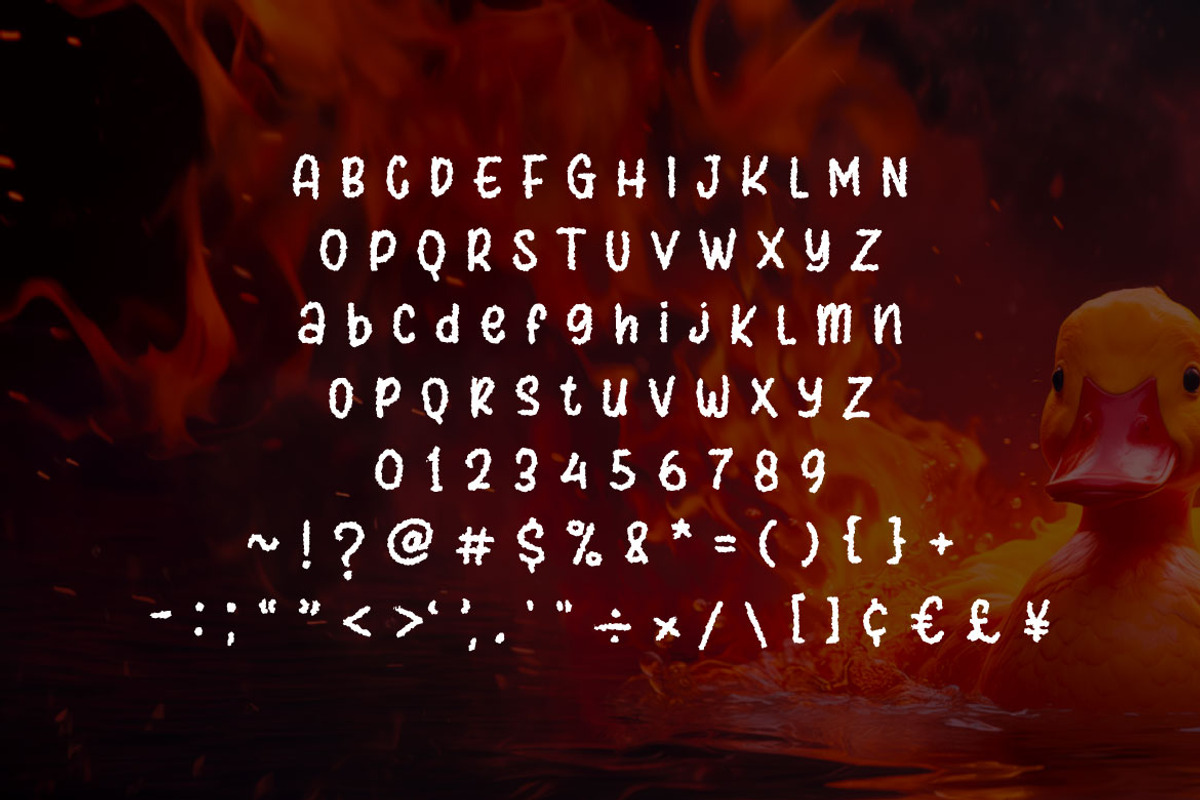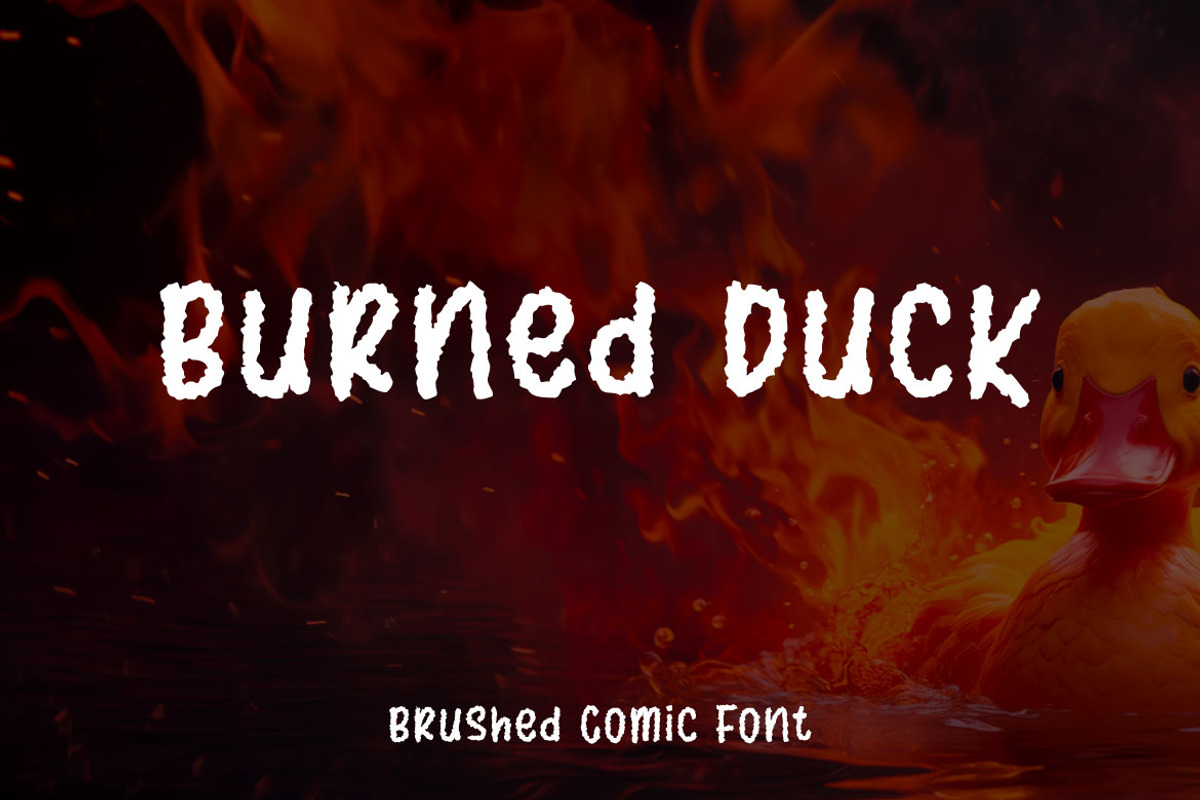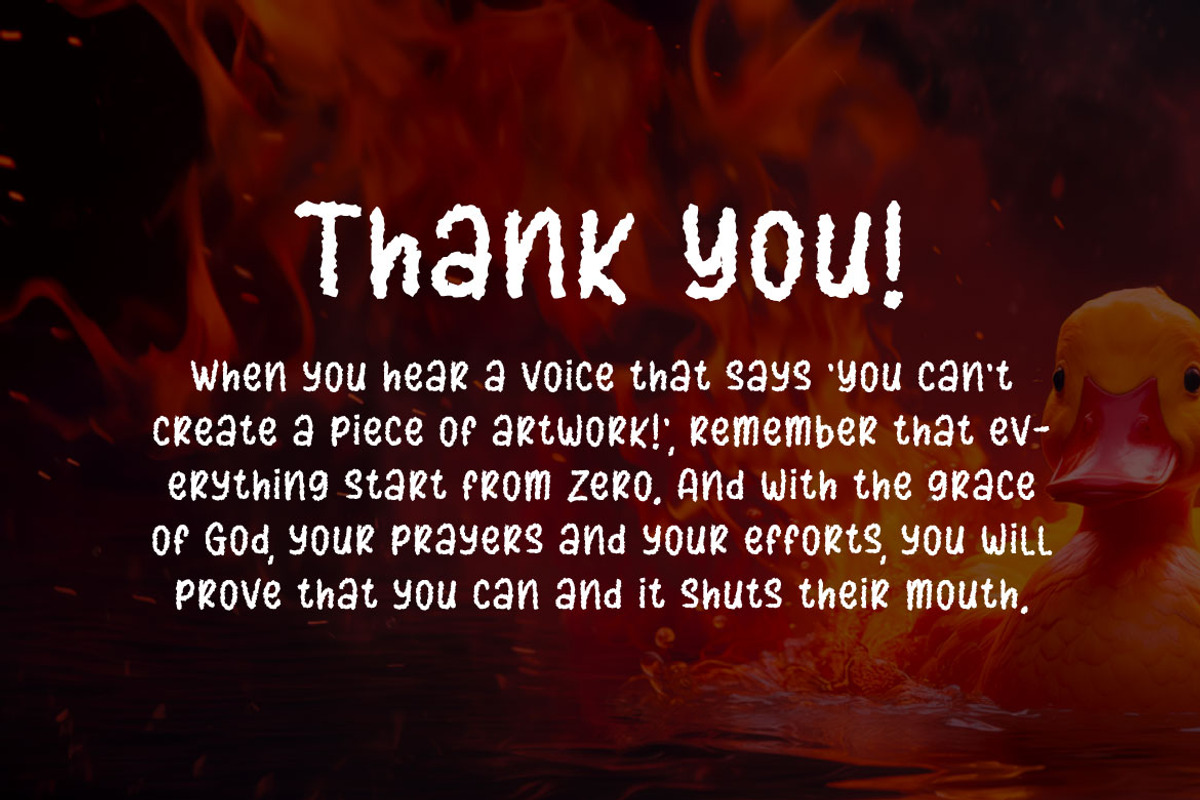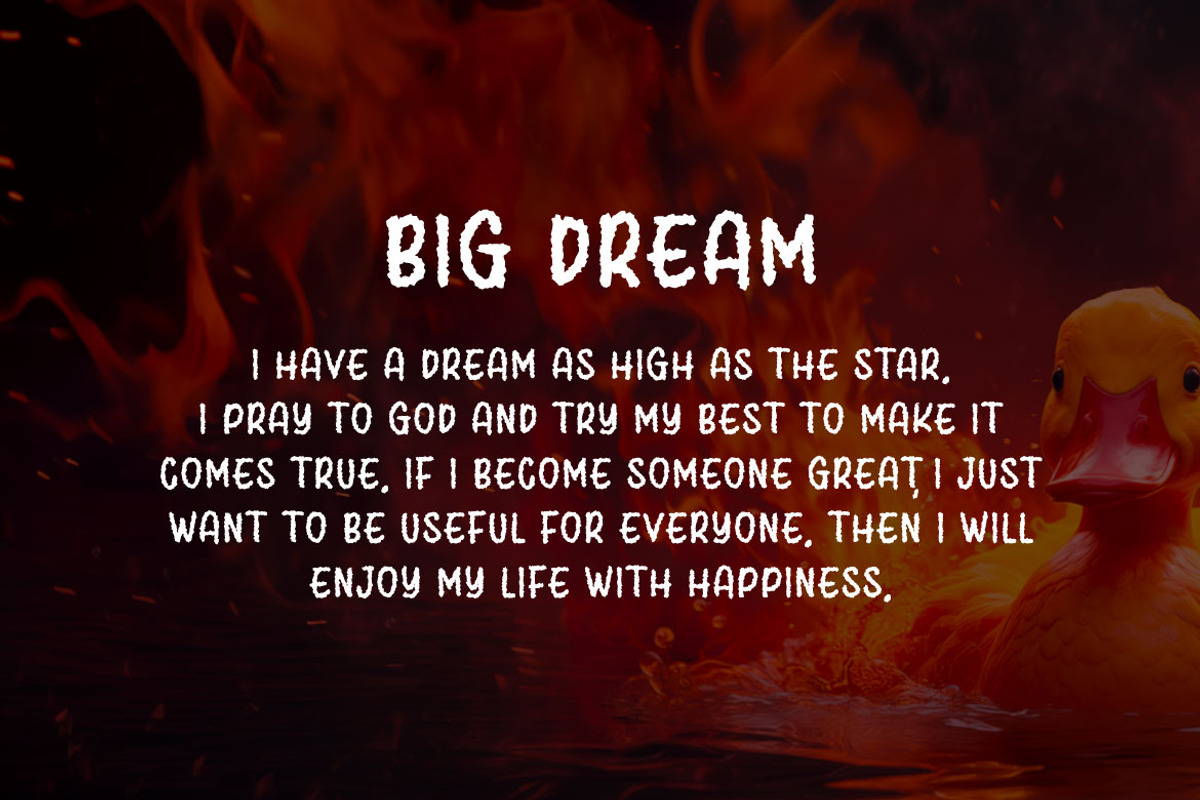
Burned Duck - Playful Brushed Comic
Introducing Burned Duck, the playful handwritten font. With each character meticulously shaped as if inked by a playful hand, Burned Duck exudes a sense of spontaneity and creativity.
The irregular lines and slightly varying sizes contribute to the font's organic and dynamic appearance, making it a perfect choice for those seeking to infuse their designs with a dash of personality and humor.
Whether you're designing comic strips, graphic novels, greeting cards, or any other creative endeavor, Burned Duck lends an air of authenticity to your text. Its playful imperfections add character and liveliness, making your words dance across the page as if penned by a skilled cartoonist.